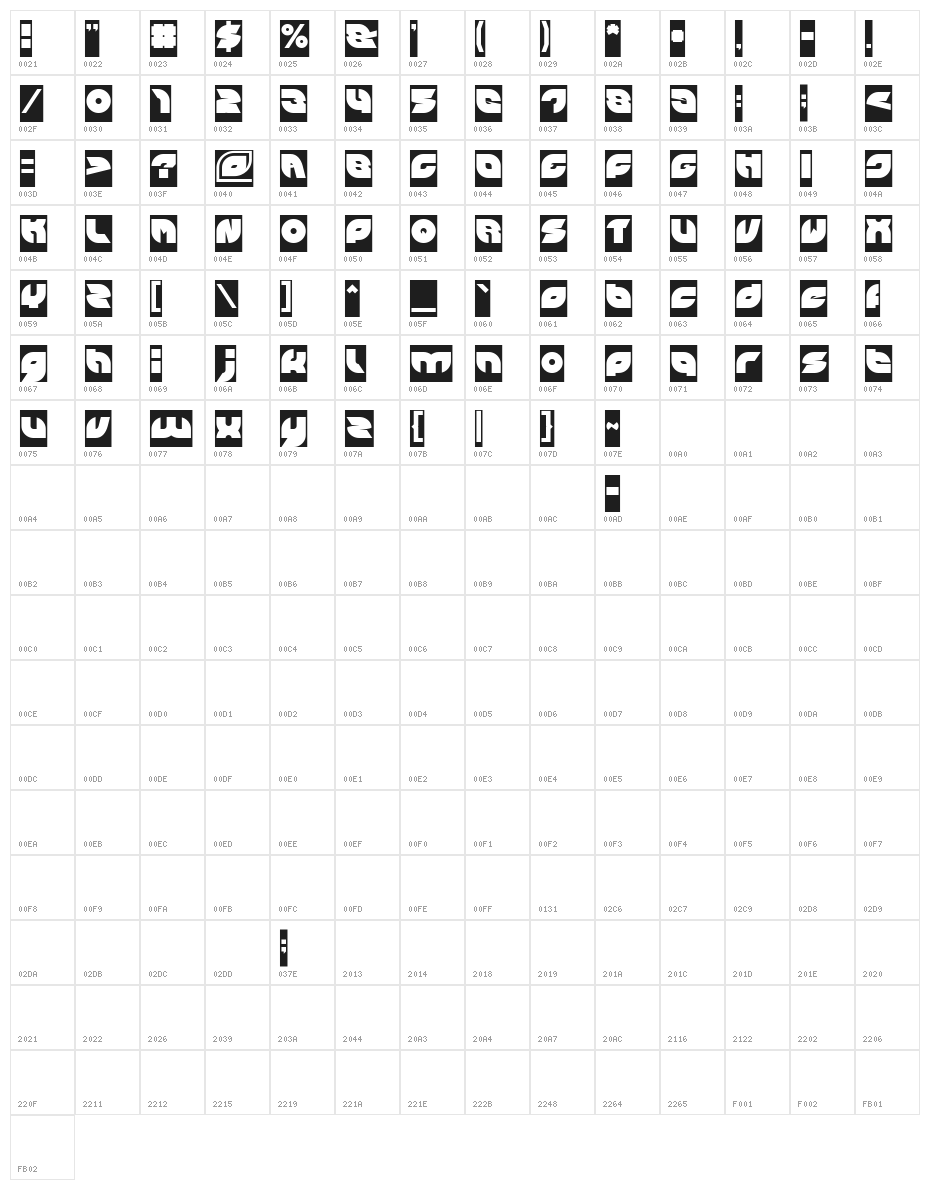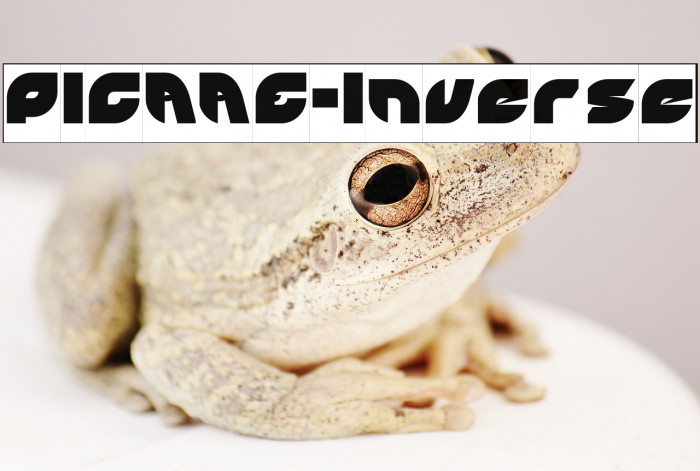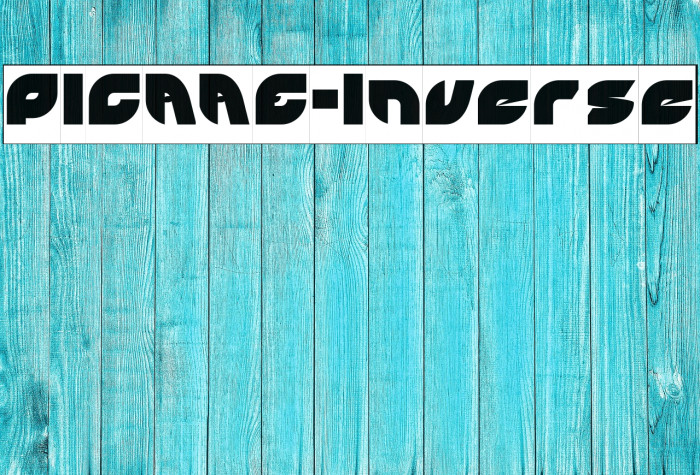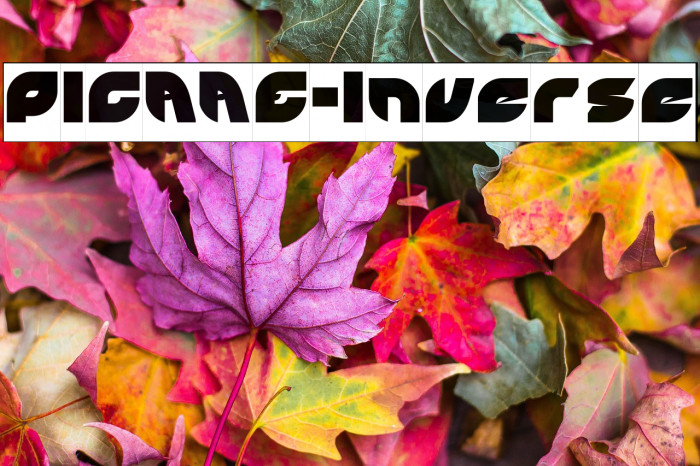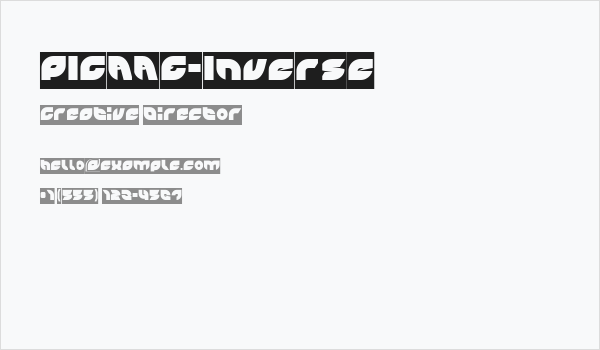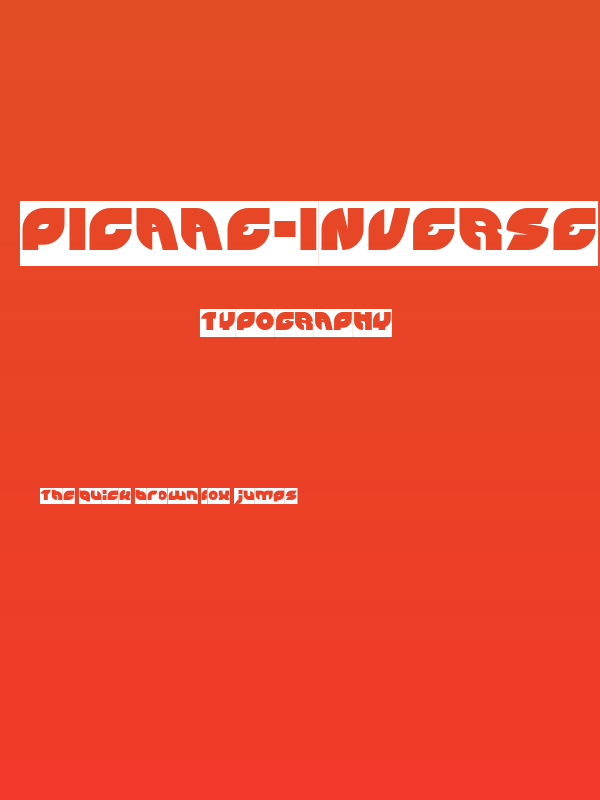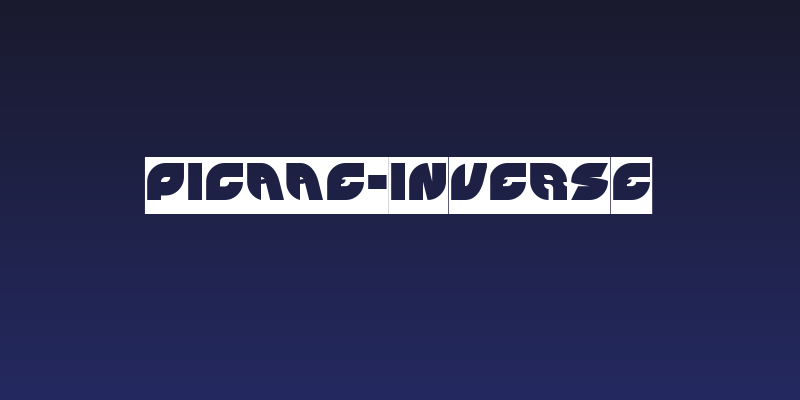
PICAAE-Inverse Font
PICAAE-Inverse Description
This font features a bold and futuristic design with a strong geometric influence. Each character is crafted with a unique interplay of positive and negative space, creating a visually striking appearance. The letters are wide and blocky, with sharp angles and curves that give them a dynamic and modern feel. The uppercase and lowercase characters maintain a consistent style, ensuring readability while adding a distinctive flair. Numbers and special characters follow the same design principles, making them cohesive with the alphabet. This font's boldness and unique style make it ideal for attention-grabbing designs.
| Proposed Projects | Ideal for sci-fi themed projects, modern branding, posters, and digital media. |